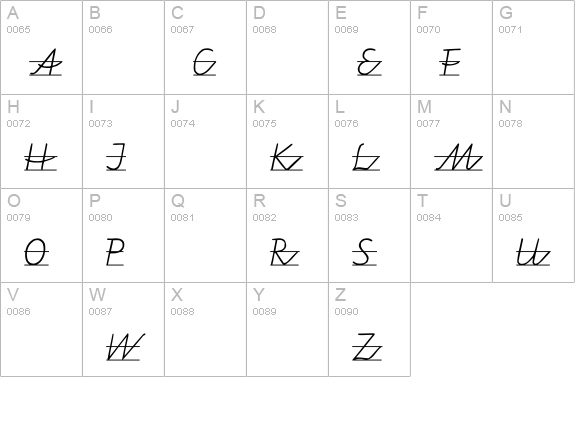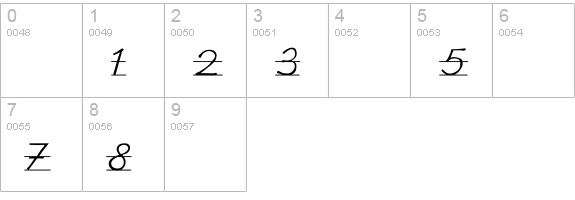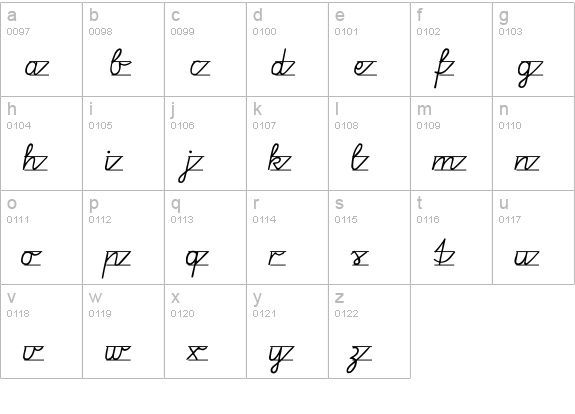
Vamiba Font Details
Vamiba font is a stunning display font that exudes elegance and sophistication. With its clean lines and contemporary design, this font is perfect for various design projects, from logos and branding to headlines and titles. What sets Vamiba font apart is not only its remarkable aesthetics but also its accessibility. It is a free font, freely available to download at FontsMarket.com. This means that designers and creatives of all backgrounds can enjoy the beauty and versatility of Vamiba font without any cost. The designers behind Vamiba font have meticulously crafted each character, ensuring that every letter seamlessly flows into the next, creating a harmonious and visually pleasing typography experience. The font's generous spacing and well-balanced proportions make it highly legible and easy on the eyes, making it suitable for both print and digital media. Whether you are working on a professional project or simply want to add a touch of sophistication to your personal creations, Vamiba font is the perfect choice. Its versatility allows it to be paired with various design elements and styles, giving you the freedom to create eye-catching and impactful designs. With Vamiba font, you can effortlessly elevate your designs to new heights. Its timeless appeal and modern aesthetics make it a go-to font for designers who want to make a lasting impression. So why wait? Download Vamiba font for free at FontsMarket.com and unlock a world of design possibilities.